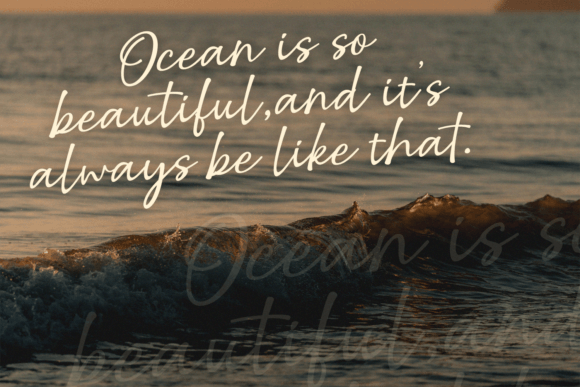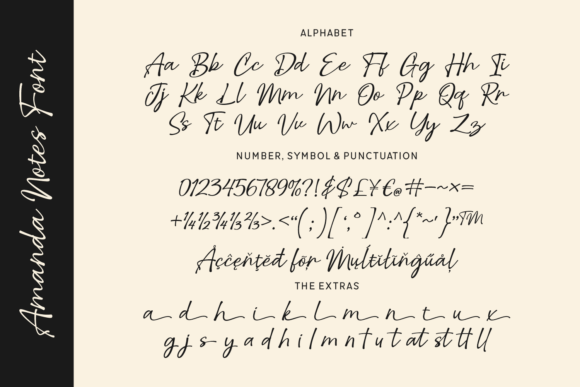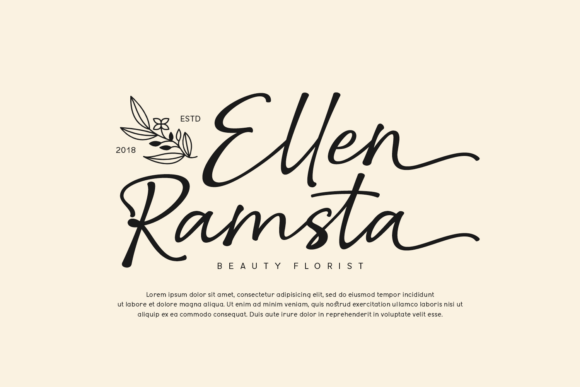
Amanda Notes Font: Where Handwritten Charm Meets Design
Have you ever sat down with a blank sheet of paper and a pen, feeling the urge to create something truly personal and heartfelt? For many of us, the act of putting pen to paper can be a therapeutic escape from the digital world, allowing us to connect with our creativity in a more intimate way. This is exactly what inspired the designers behind the Amanda Notes Font – a charming handwritten script font that captures the essence of handwritten notes and personal messages.
The Amanda Notes Font is perfect for designers looking to add a touch of warmth and personality to their projects. With its smooth, flowing letters and special ligatures, this font is ideal for invitations, notes, and creative projects that require a human touch. Whether you’re a professional designer or a DIY enthusiast, the Amanda Notes Font is a valuable addition to your toolkit, offering endless possibilities for adding a personal touch to your designs.
Amanda Notes Font Key Features
- Font Family: Amanda Notes is a unique, handwritten script font.
- Size: Offers 300 characters per font, including uppercase, lowercase letters, and various punctuation marks.
- Unique Characteristics: Features a distinctive, cursive style with varying line widths and subtle imperfections, giving it a personal and creative feel.
Amanda Notes Font Review
As a designer, I’ve had the chance to work with a wide variety of fonts, and I’m excited to share my thoughts on the Amanda Notes font. ✨ One thing that stands out to me is the unique and playful feel of this font. It’s perfect for adding a touch of whimsy to a project, and the subtle imperfections give it a hand-written feel that’s both charming and authentic.
Another strength of the Amanda Notes font is its versatility. ✨ It works beautifully for titles, headings, and even body text, making it a great choice for a wide range of projects. The font also comes in a variety of weights and styles, allowing you to mix and match to create the perfect look for your project.
However, there are a few limitations to consider. ⚠️ One of the main issues I’ve encountered is the font’s legibility at smaller sizes. While it’s still readable, the text can become a bit fuzzy and difficult to decipher, which may be a problem for projects where text needs to be displayed in a compact format.
Overall, I think the Amanda Notes font is a great choice for designers looking to add some personality to their projects. While it may not be perfect, its unique feel and versatility make it a solid addition to any font collection.
- Unique and playful feel
- Versatile and works well for titles, headings, and body text
- Available in a variety of weights and styles
- Legibility can be a problem at smaller sizes
The Amanda Notes Font is ideal for:
- Creating handwritten-style text for invitations, quotes, or social media graphics.
- Designing minimalist-inspired documents, such as planners, journals, or resumes.
- Adding a personal touch to presentations, reports, or proposals.